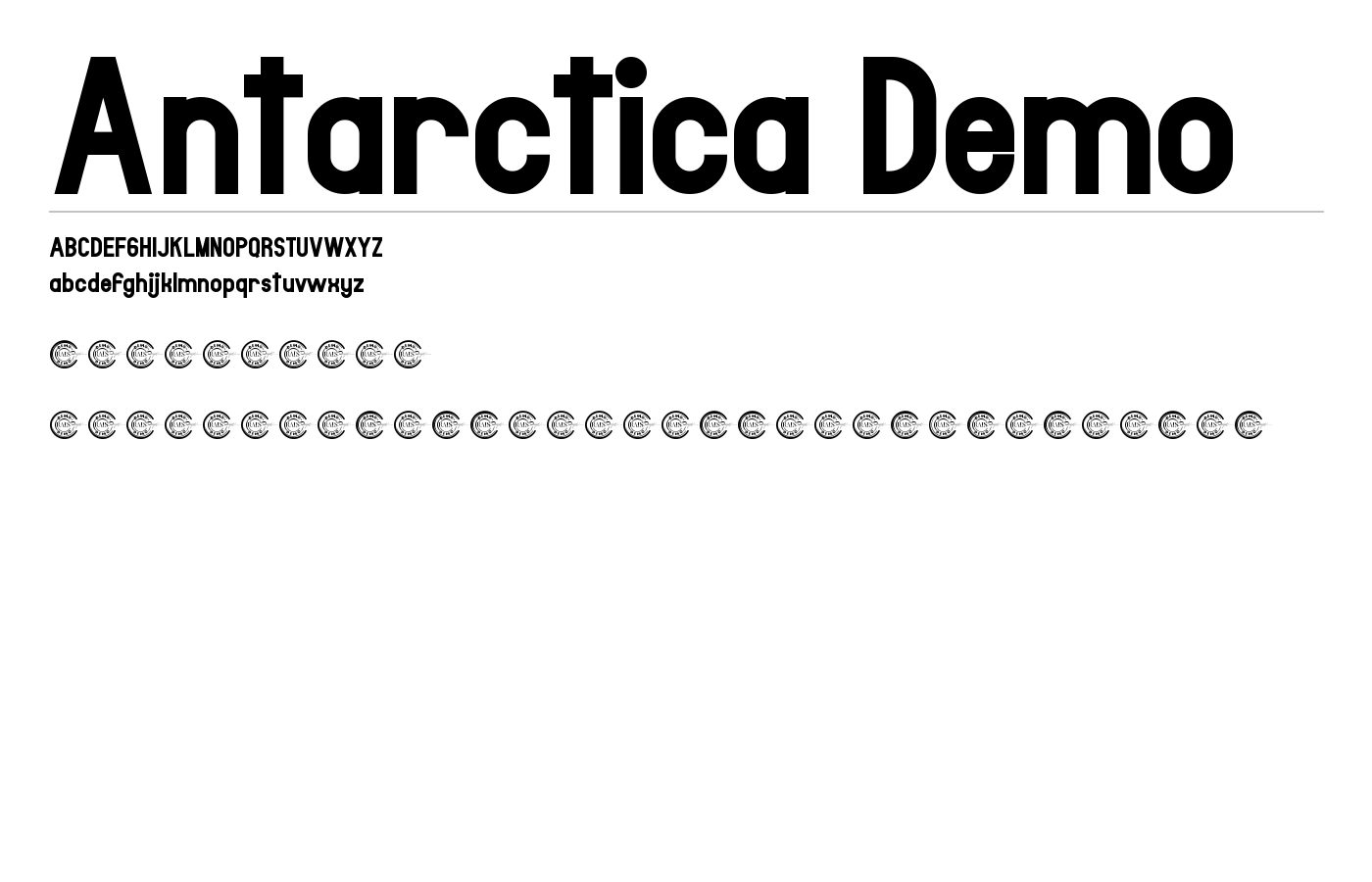
Antarctica Demo is a bold, condensed sans serif font with a strong, modern feel. It features high x-height, minimal contrast, and geometric shapes that give it a clean and straightforward look, making it ideal for impactful headlines, logos, and branding projects that require a confident and contemporary style. Its compact letterforms and consistent stroke weight ensure excellent readability and a polished, professional appearance.
Antarctica Demo Font
About Antarctica Demo Font